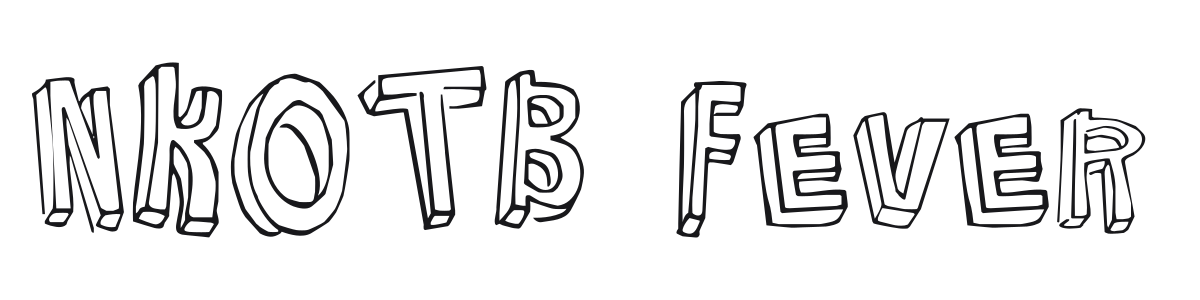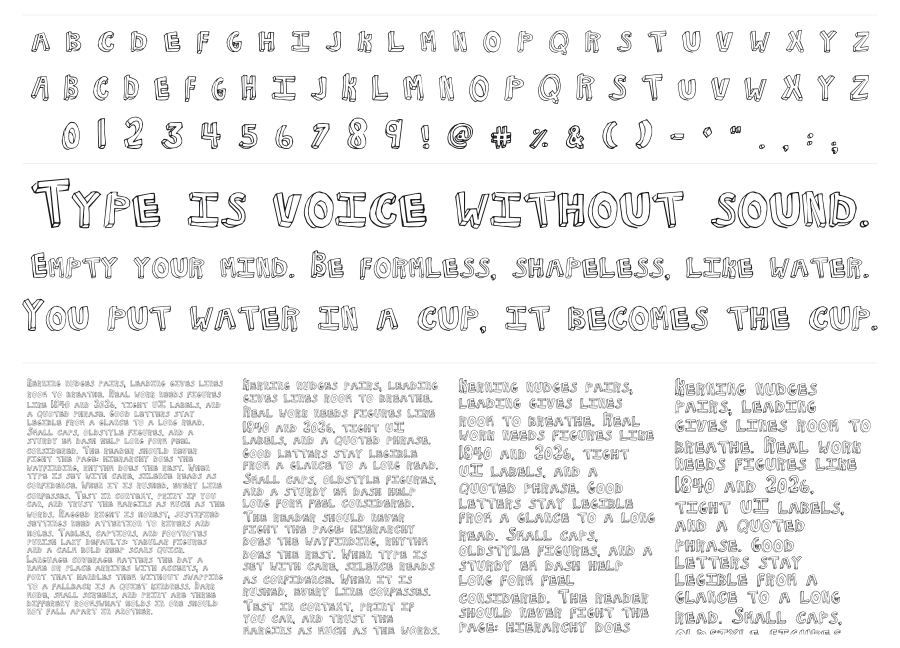
NKOTB Fever
NKOTB Fever is a bold rounded outline display font with a bubbly hand-drawn character and a subtle inline shadow that adds cartoon depth. It channels the playful energy of 1990s pop culture and teen entertainment graphics. Works best at large sizes where the outline detail and dimensional effect can read clearly.